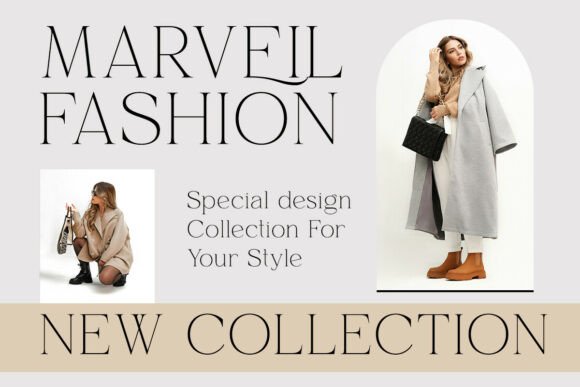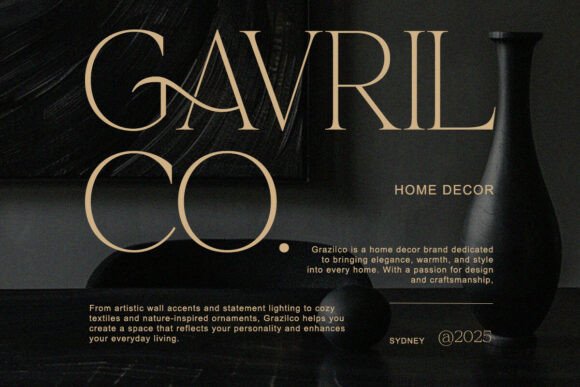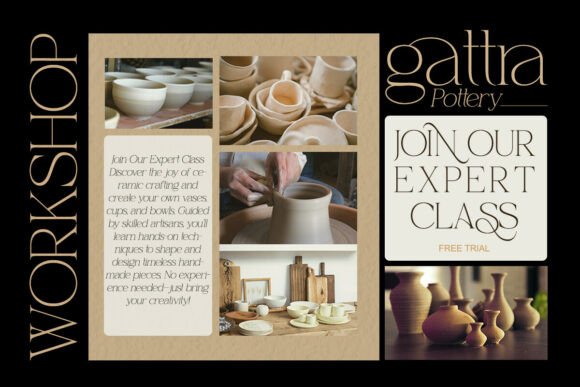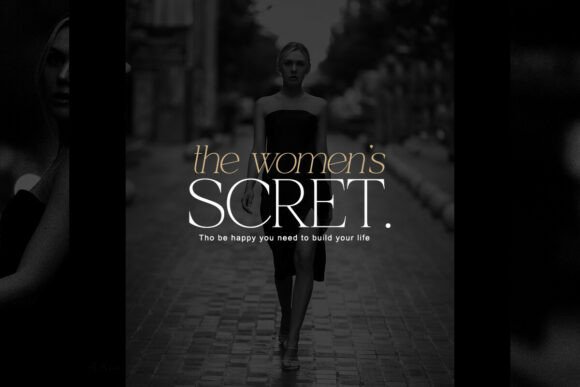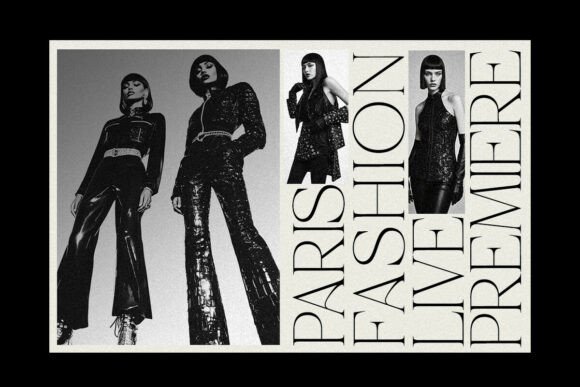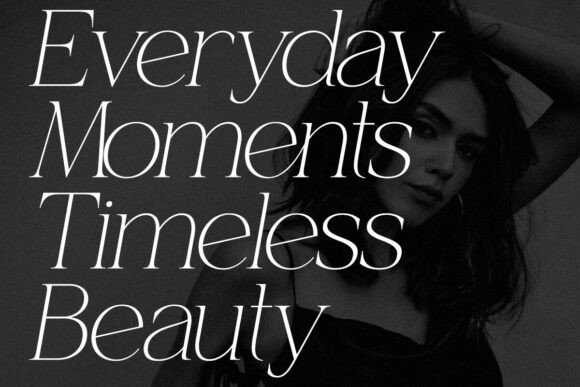
Belvina Font: Elevate Your Design with Modern Luxury
Belvina is a sophisticated serif typeface that embodies the perfect blend of contemporary elegance and timeless sophistication. This refined font is designed to bring a high-end aesthetic to any creative project, making it an ideal choice for designers and crafters looking to elevate their visual branding.
Clean Lines, Sharp Contrast, and Elegant Curves
Belvina’s design is characterized by clean lines, sharp contrast, and graceful curves, which work together to create a sense of luxury and refinement. The font’s sleek ligatures and stylish alternates add an extra layer of sophistication, making it perfect for projects that require a high level of elegance and poise.
Belvina is a versatile font that includes both Regular and Italic styles, offering flexibility for a wide range of design applications. Whether you’re working on luxury branding, editorial layouts, or any other project that requires a touch of sophistication, Belvina is the perfect choice.
Extensive Features for Endless Creativity
Belvina boasts an impressive range of features, including over 20 elegant alternates and classic ligatures. These features ensure seamless visual flow and polished presentation across all design applications, making it easy to create stunning visuals that capture your audience’s attention.
Ideal for Luxury Branding and Design Applications
Belvina is perfectly suited for a variety of design applications, including:
- Fashion and beauty branding: Add a touch of luxury to your brand’s visual identity with Belvina’s sophisticated and elegant design.
- High-end logos: Create a lasting impression with Belvina’s sleek and refined design, perfect for high-end logos and branding.
- Premium packaging: Elevate your packaging design with Belvina’s luxurious aesthetic, perfect for high-end products.
- Wedding invitations: Add a touch of elegance and sophistication to your wedding invitations with Belvina’s refined design.
- Magazine titles: Create stunning magazine titles with Belvina’s bold and elegant design.
- Sophisticated social media: Elevate your social media presence with Belvina’s luxurious aesthetic, perfect for creating engaging and sophisticated content.
Why Choose Belvina?
Belvina offers a unique combination of modern elegance and timeless sophistication, making it the perfect choice for designers and crafters looking to elevate their visual branding. With its extensive features, versatility, and language support, Belvina is an excellent investment for any designer looking to take their designs to the next level.
Belvina is a modern luxury serif font that embodies the perfect blend of elegance and sophistication. With its clean lines, sharp contrast, and elegant curves, Belvina is the perfect choice for designers and crafters looking to elevate their visual branding. Whether you’re working on luxury branding, editorial layouts, or any other project that requires a touch of sophistication, Belvina is the perfect choice.